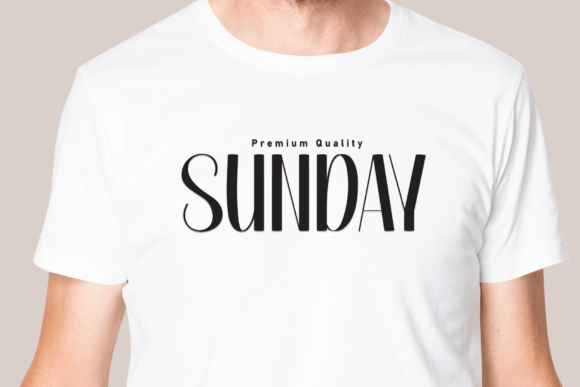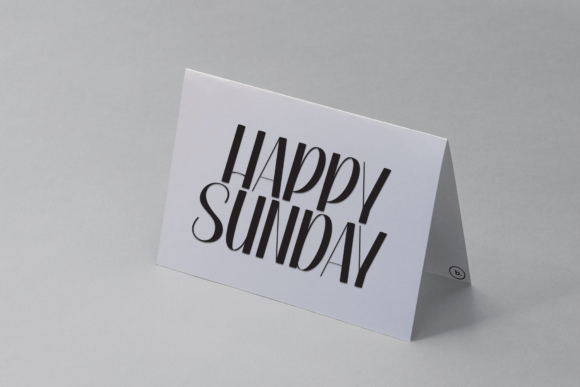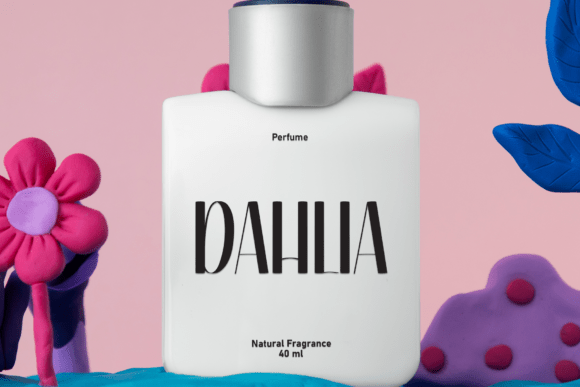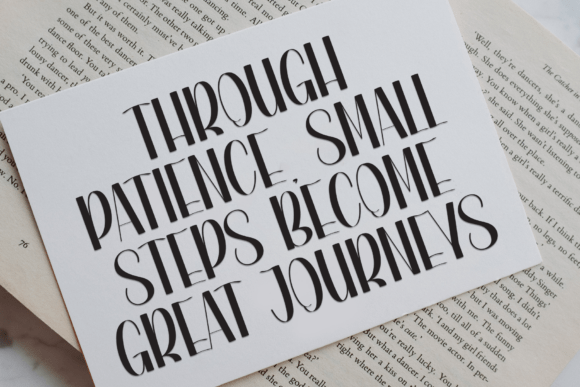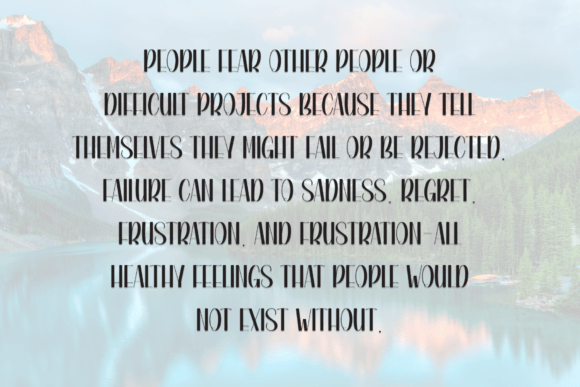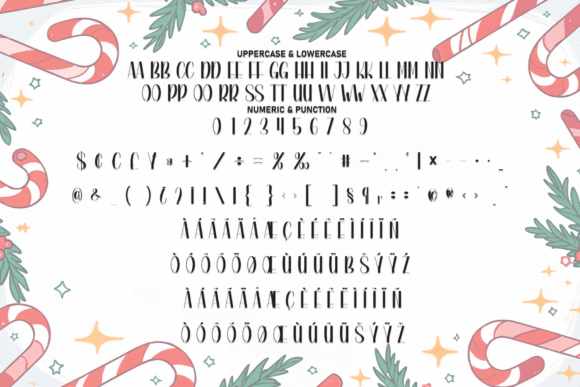
Unwrap the Magic of the Holiday Season with the Candy Christmas Font
As the snowflakes start to fall and the twinkling lights adorn the trees, we can’t help but feel a rush of creativity. There’s something about the holiday season that sparks our imagination and inspires us to create something truly special. Whether you’re a seasoned designer or a holiday enthusiast, the Candy Christmas Font is here to help you bring your festive ideas to life.
This delightful font is more than just a stylish addition to your holiday decor – it’s a versatile tool that can be used to add a touch of whimsy to your designs. From wedding invitations to social media posts, the Candy Christmas Font is the perfect way to inject some holiday cheer into your projects. With its long-term support, free features, and bug fixes, you can rely on this font to bring your designs to the next level.
Candy Christmas Font Key Features
- Font Family: A festive and playful font perfect for holiday designs and projects.
- Unique Characteristics: Features a mix of bold and cursive elements, creating a fun and whimsical atmosphere, ideal for holiday-themed designs.
Candy Christmas Font Review
As a designer, I was excited to dive into the “Candy Christmas Font” and see what it had to offer. Here’s my honest take.
- Festive and playful feel that’s perfect for holiday-themed projects.
- Unique and whimsical design elements that add visual interest.
- Works well for titles, headings, and short text passages.
- Good for digital projects, such as social media graphics, email headers, and more.
- May not be suitable for large blocks of text due to its playful and ornate design.
- Can be difficult to read in certain font sizes or on low-resolution screens.
- Not ideal for formal or professional projects, as it may come across as too childish.
The “Candy Christmas Font” is a fun and festive addition to any holiday-themed project. While it may have some limitations, it’s perfect for those looking to add a playful touch to their designs. Just be sure to use it in moderation and in the right context.
Some common use cases for the Candy Christmas Font include:
– Creating festive holiday graphics and designs
– Adding a playful touch to social media posts and ads
– Designing holiday-themed merchandise and packaging
– Creating custom invitations and party decorations
Comparison: Great Vibes is more elegant and refined, whereas Candy Christmas Font is more whimsical and childish. Great Vibes is a better choice for designs that require a more mature and sophisticated feel.
Comparison: Carolyna Pro is more elegant and refined, whereas Candy Christmas Font is more whimsical and childish. Carolyna Pro is a better choice for designs that require a more formal and sophisticated feel.